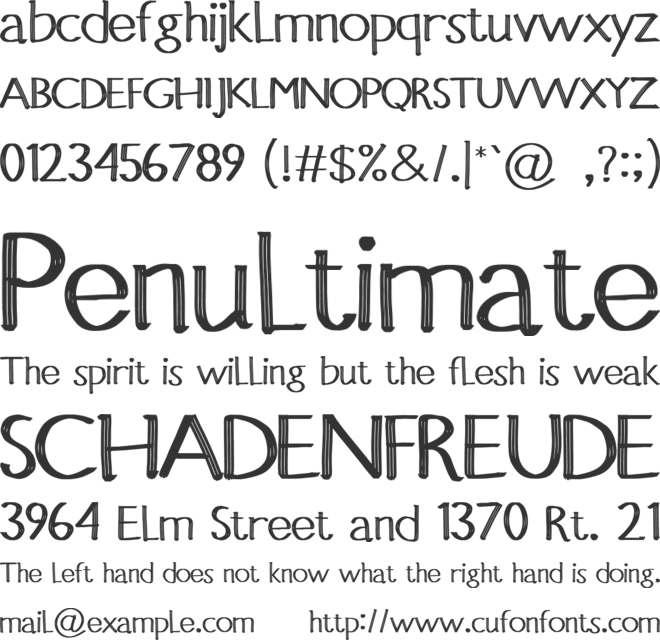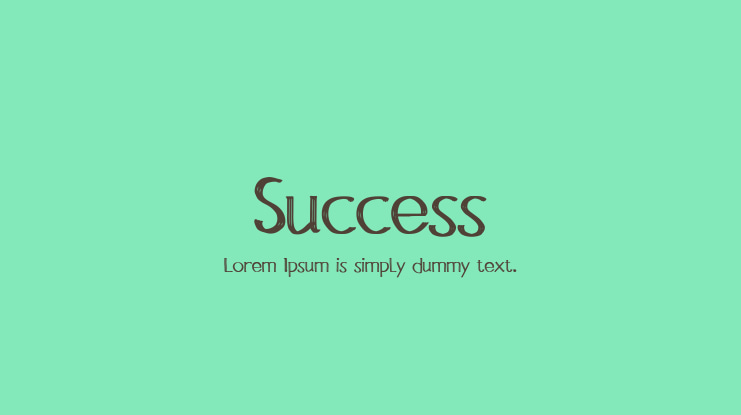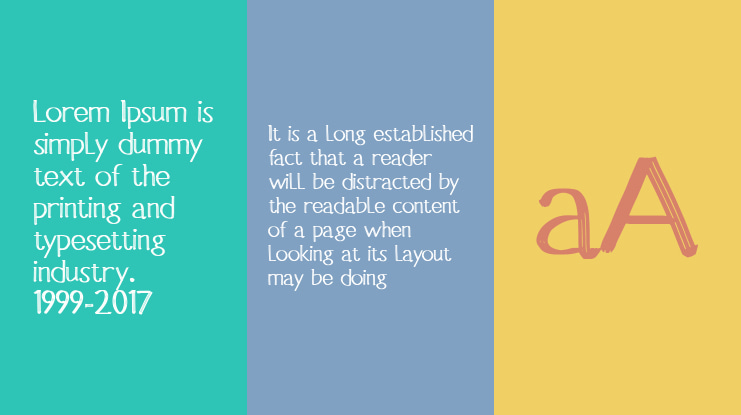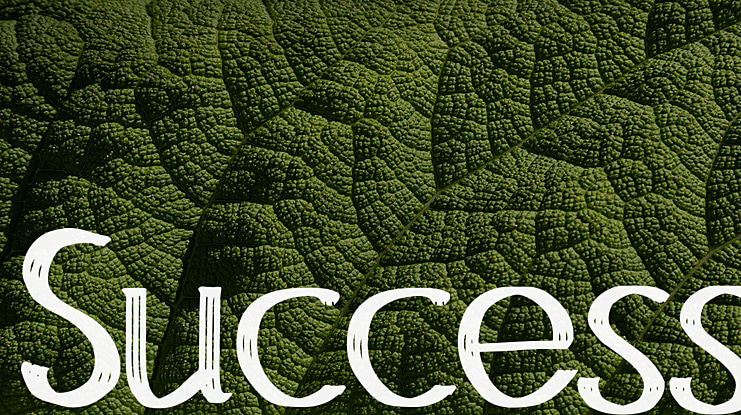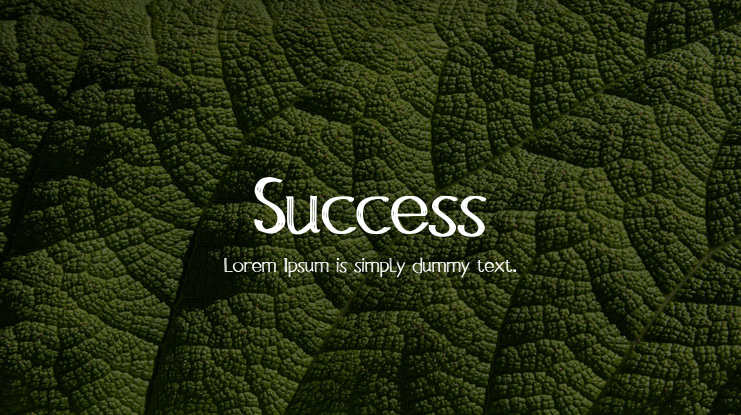
Success Font
Success is a simple, neat and brushed handwritten font. Its sweet and full of life style makes this font a wonderful choice for brightening up your designs.